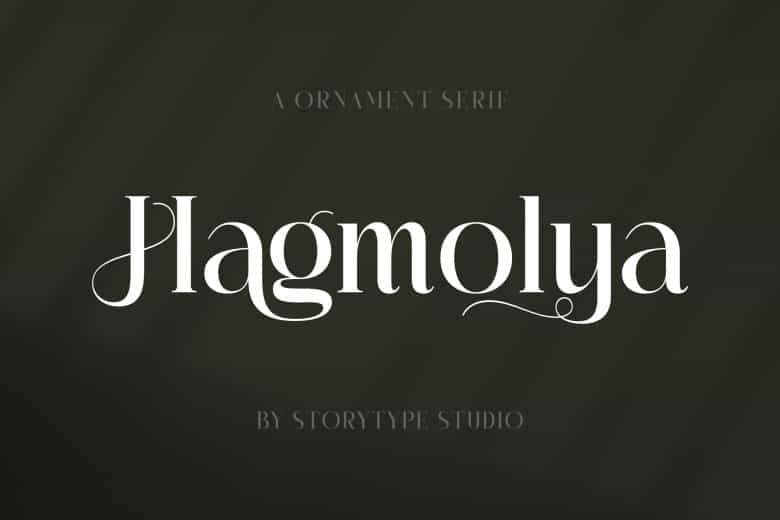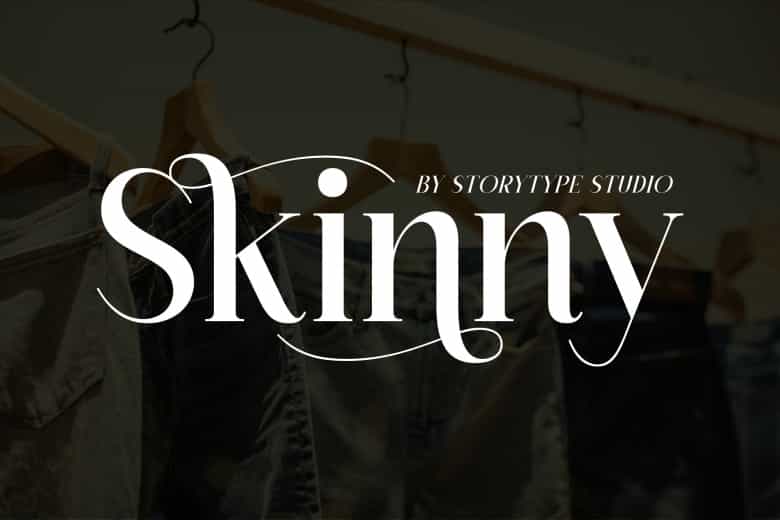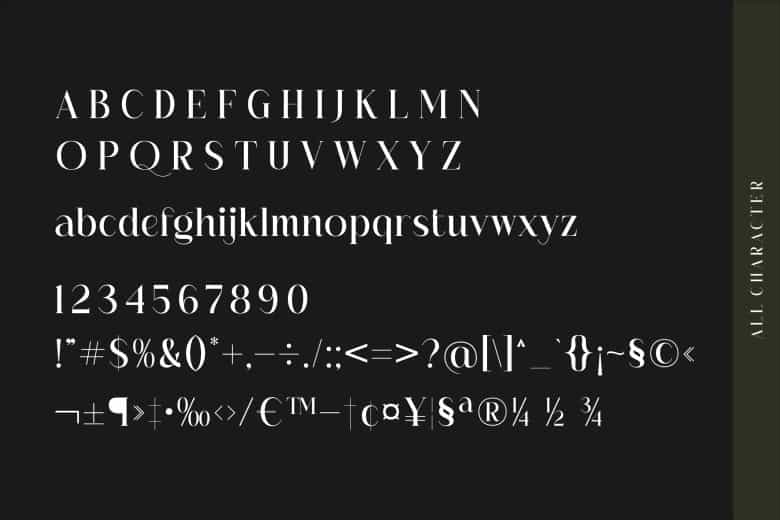
Hagmolya Font, developed by Storytype, is a timeless yet modern serif typeface that stands out for its distinctive style and contemporary look. Perfect for sophisticated logos, movie/book title designs, fashion clothing brand clothing designs and magazines as well as lettering projects like quotes.